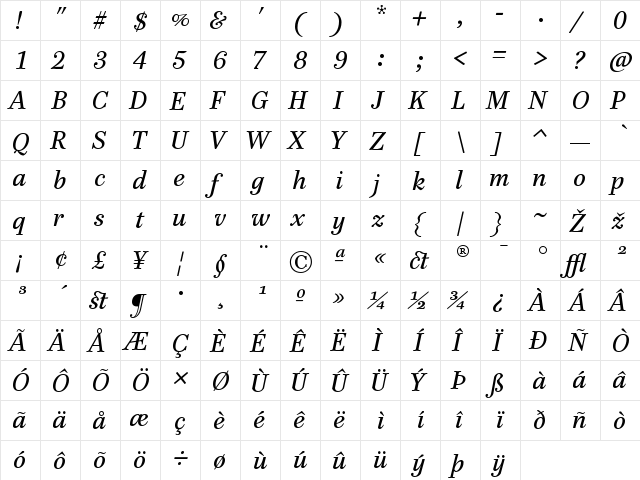
PB12TTP-ItalicTF Regular
Design Context for PB12TTP-ItalicTF Typeface
PB12TTP-ItalicTF is a composed and adaptable typeface that performs quietly and consistently across a wide range of design contexts. The dynamic lean of this cut emphasises speed and emphasis in any layout.
Pro Tip: Try PB12TTP-ItalicTF for annotation and caption copy alongside an upright companion — the contrast in angle creates a dynamic but ordered typographic system.